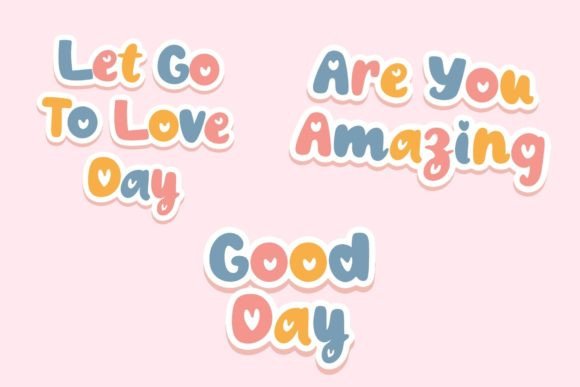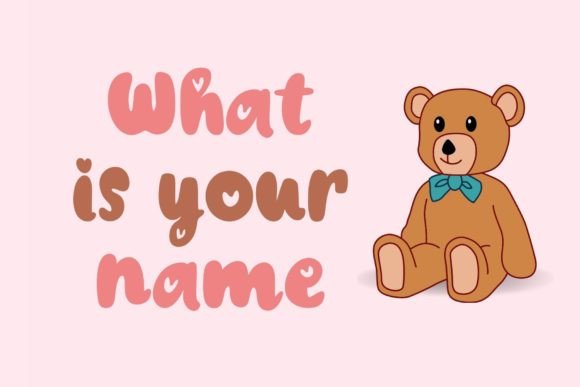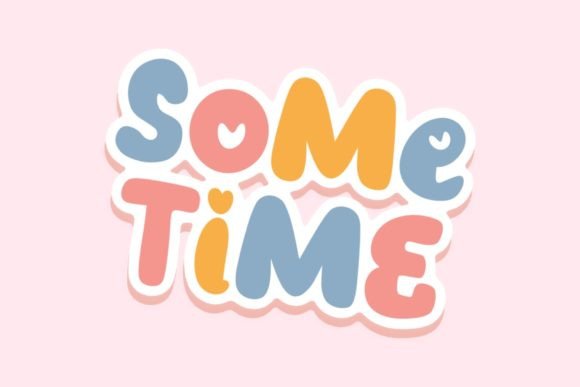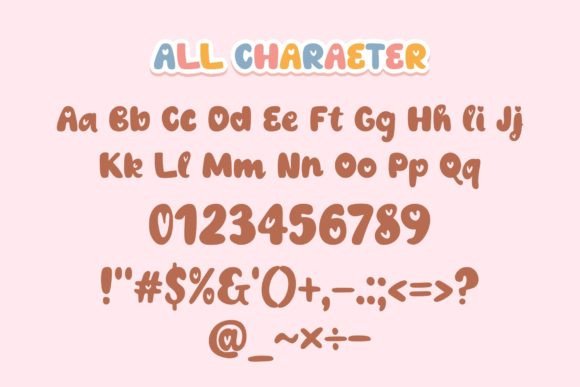
Introduction to Love All Font
As a designer, there’s nothing quite like the feeling of creating something beautiful that sparks joy in others. It’s that moment when you see your design come to life, and you know you’ve made a difference in someone’s day. For me, it was a custom wedding invitation I designed for a dear friend, using a font that perfectly captured the essence of their love story. And that’s when I discovered Love All Font – a typeface that has since become a go-to resource for designers looking to infuse their creations with love and positivity.
With its elegant curves and heartwarming details, Love All Font is the perfect addition to any design project. Whether you’re working on a free download for a creative client or a high-quality design for a commercial project, this versatile font is sure to bring a touch of warmth and affection to your designs. Plus, its transparent background makes it easy to use in various design styles, from romantic and elegant to cute and charming.
As a valuable resource for designers, Love All Font offers endless possibilities for creative expression. Whether you’re designing greeting cards, love notes, or heartfelt messages, this typeface is sure to inspire your next design project and spread love and positivity to all who see it.
Key Features of Love All Font
- High-quality design: The Love All Font is carefully crafted to provide a unique and elegant touch to your creative project.
- Unique characteristics: The Love All Font features a distinctive and playful style, making it perfect for creative projects that require a touch of whimsy.
Honest Review: Love All Font
I recently stumbled upon the Love All Font, and I must say it’s been a game-changer for my creative projects. The free download was a pleasant surprise, and I was blown away by the high quality of the font.
- What works well: ✨ The font’s elegant design and versatility make it perfect for various design resources, from wedding invitations to social media graphics. The transparent background is also a plus, allowing for seamless integration with any design.
- What works well: ✨ The font is highly legible, even at smaller sizes, making it ideal for body text or headlines.
However, I did encounter a few limitations: ⚠️ The font is not as extensive as some other font families, and the character set is somewhat limited. Additionally, the font’s design may not be suitable for all creative projects, as it’s quite ornate.
Overall, I’m thoroughly impressed with the Love All Font. While it may not be perfect, its unique design and high quality make it a valuable addition to any designer’s toolkit. If you’re looking for a free download with a lot of character, I highly recommend giving it a try.